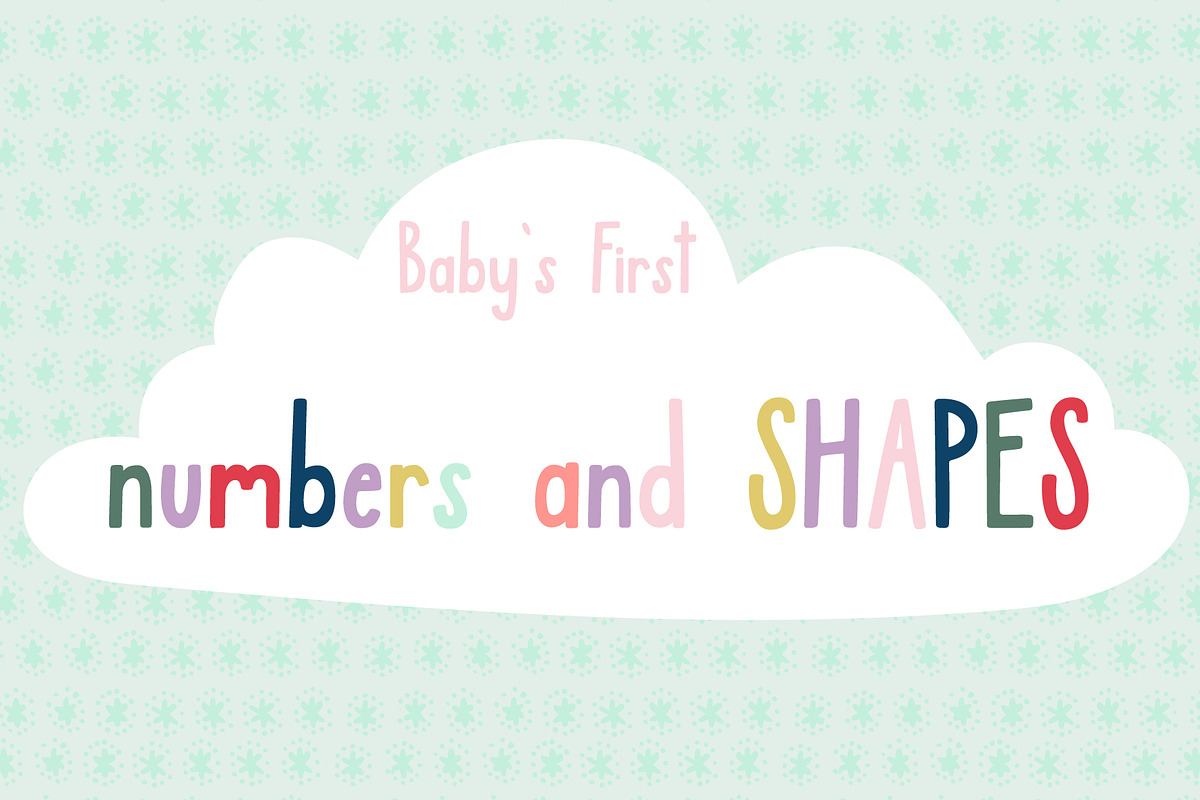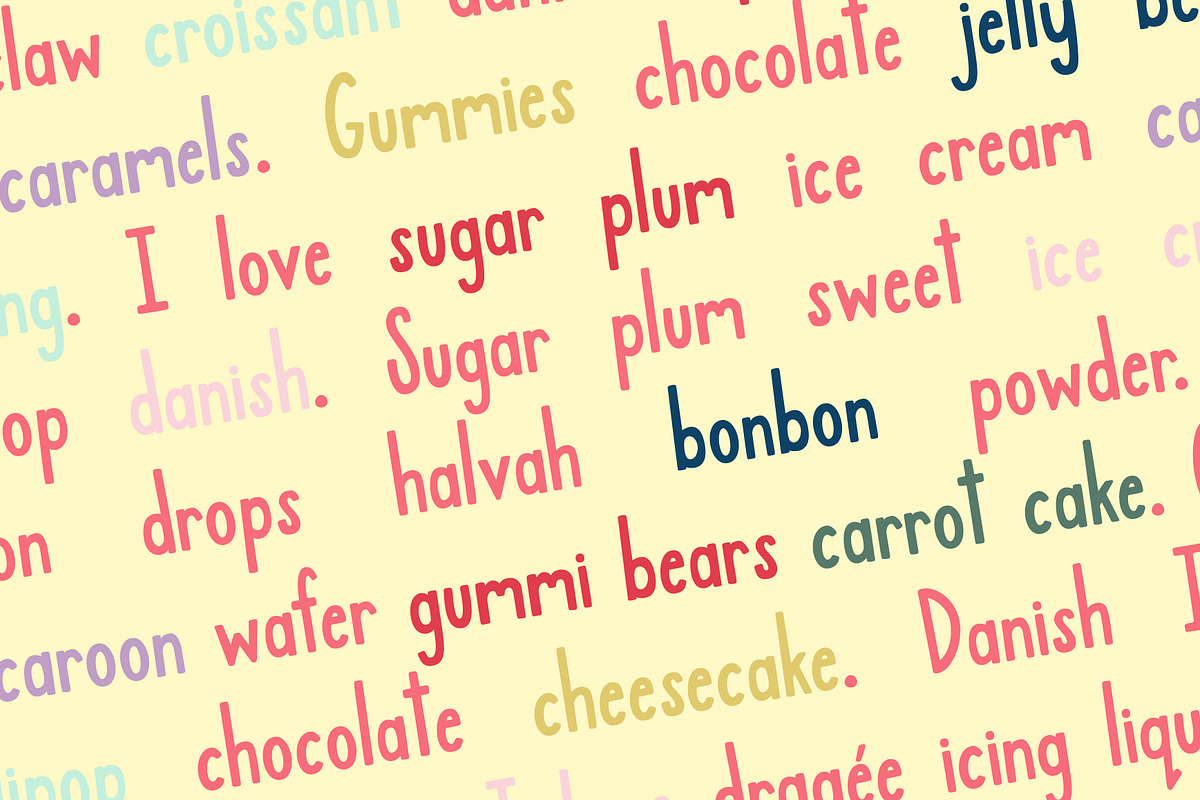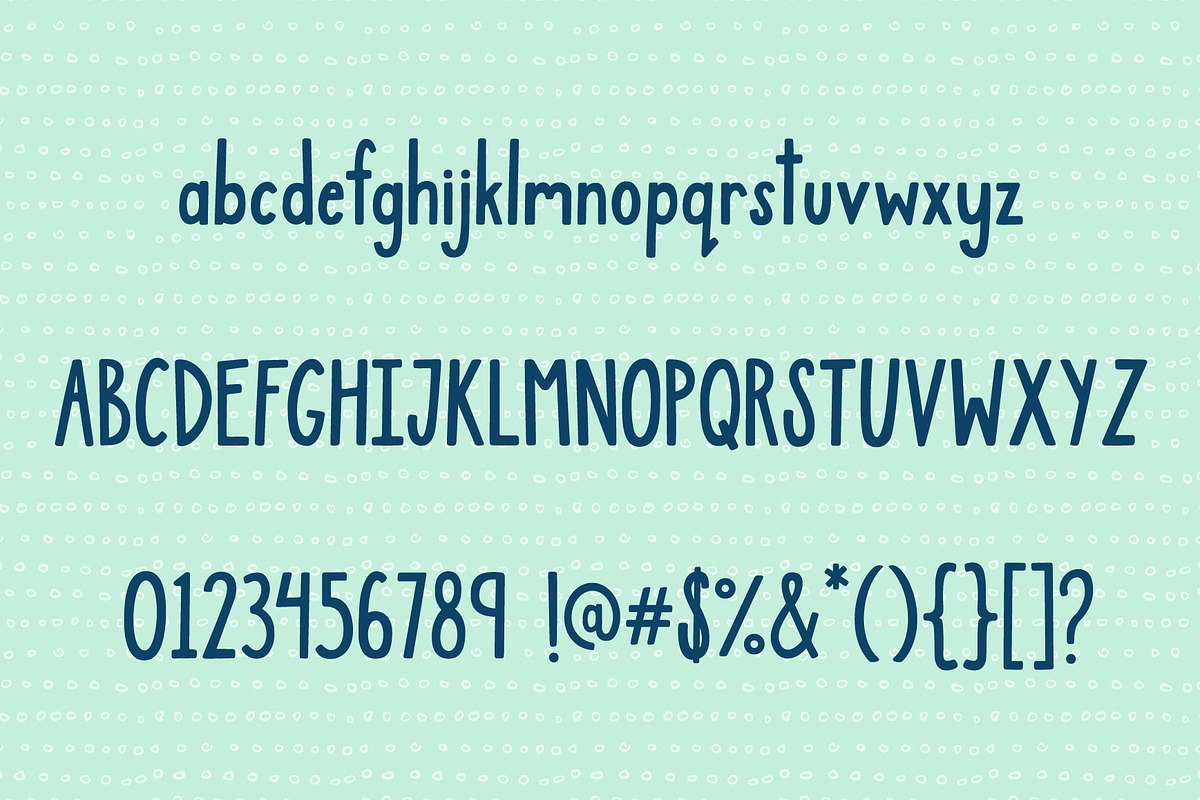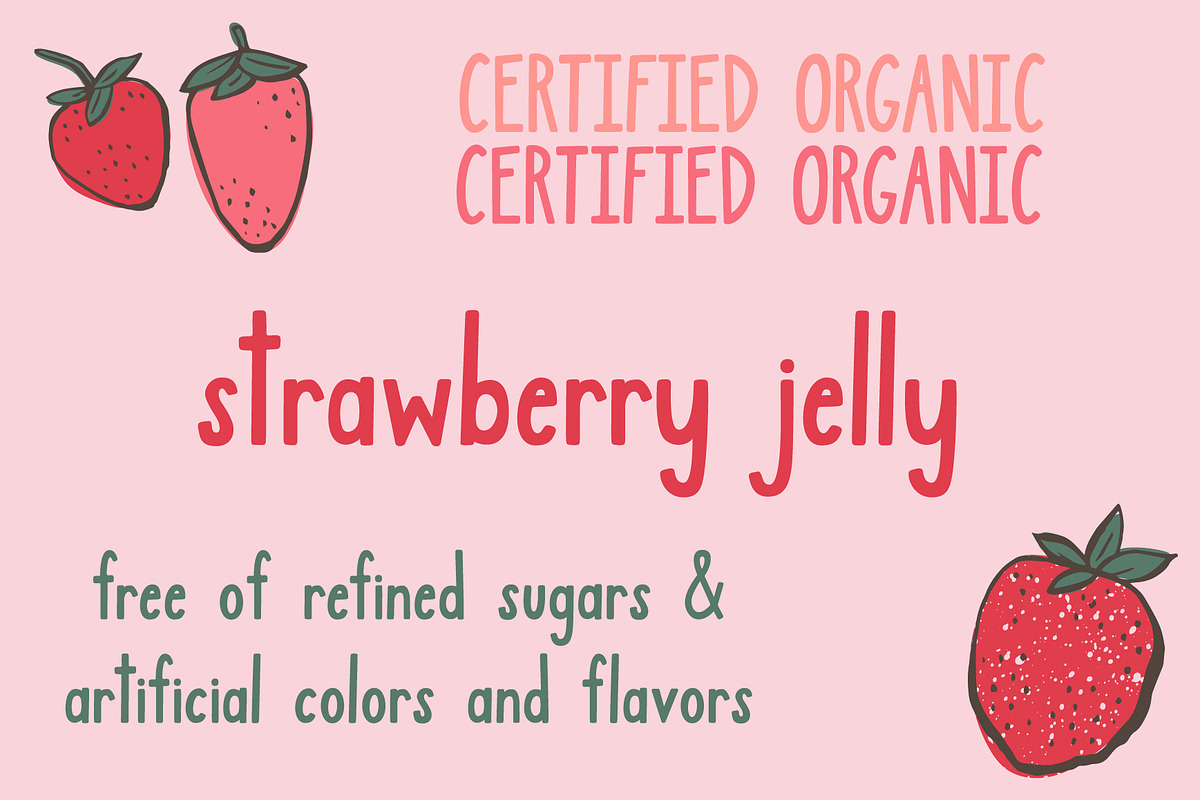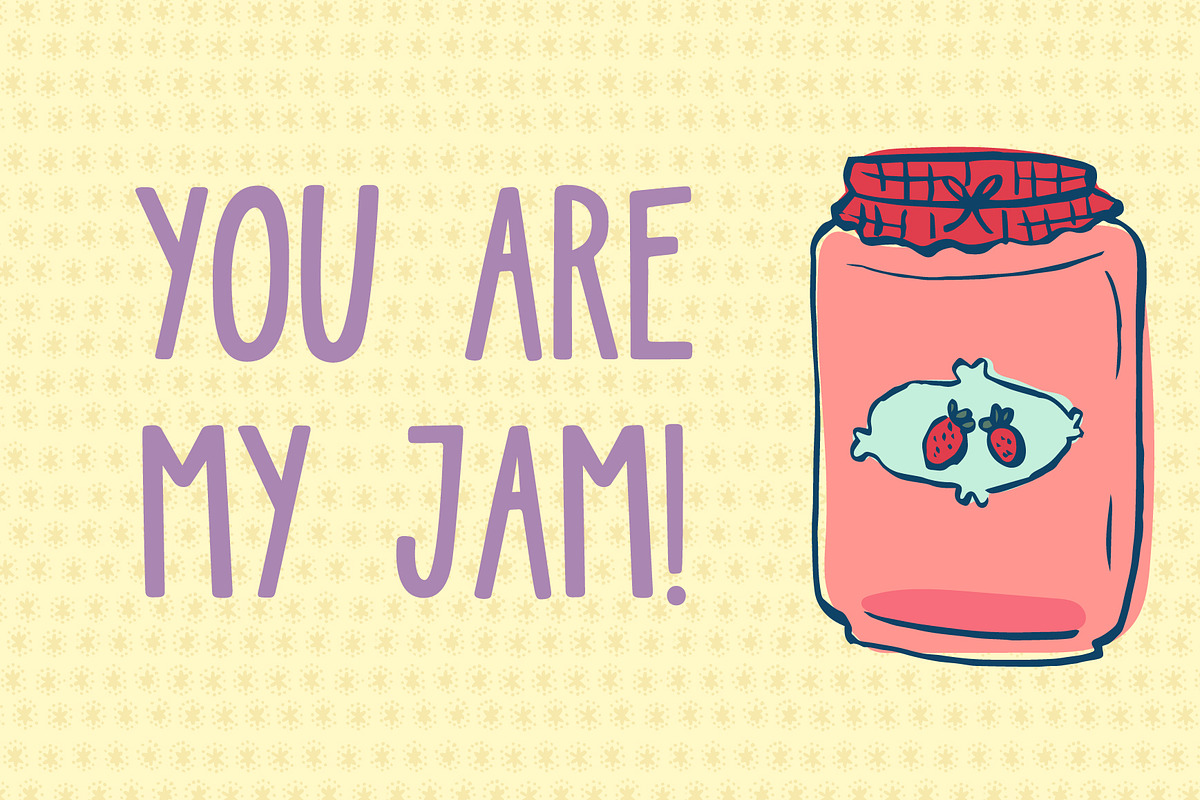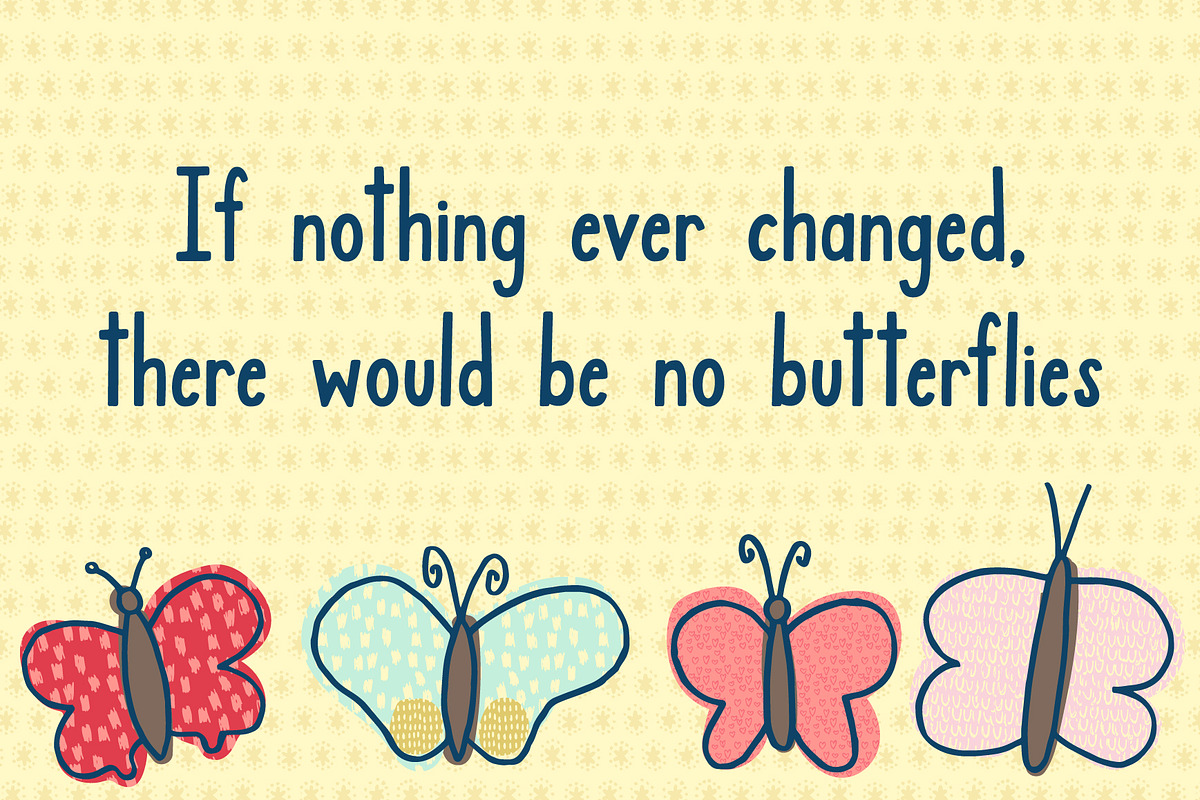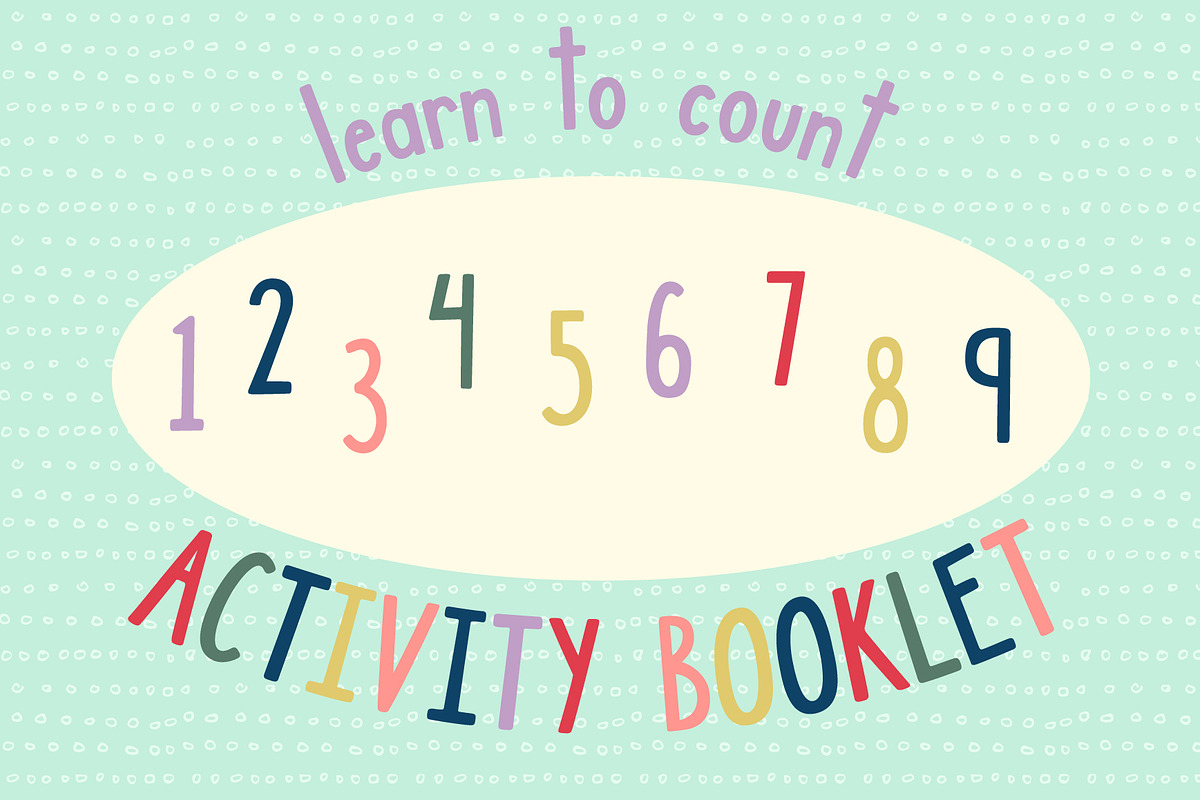
Jamberry Font
Yum! Jamberry is a super sweet and happy hand drawn font. It has been carefully cleaned and kerned for the easiest designing experience.
Jamberry includes multilingual support for Western and Central European languages!